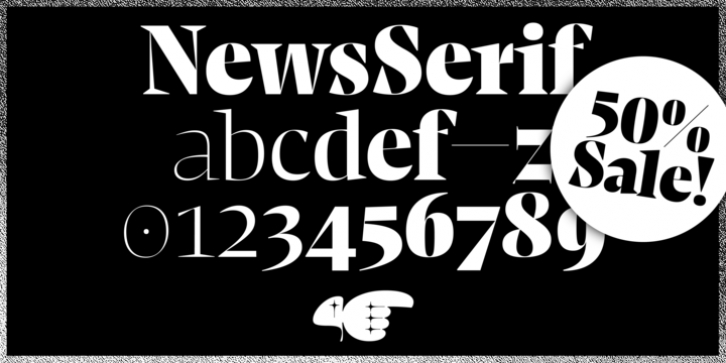
NewsSerif was designed by Henning Skibbe and published by CharacterType. NewsSerif contains 21 styles and family package options. The font is currently #33 in Hot New Fonts.
NewsSerif is the sister typeface of NewsSans. Together they are a great toolbox for all editorial and typographic challenges – analogue or digital. The 20 styles of NewsSerif are divided into three subfamilies named after their suggested use: Text, Large and Huge. The letter style evolves throughout the different subfamilies to become more expressive in the Large and Huge families.
All roman styles from the NewsSerif Text family are bundled with Italics from NewsSans. While this may appear to be an unusual pairing it makes a perfect match. The roman and italic weights are balanced perfectly.